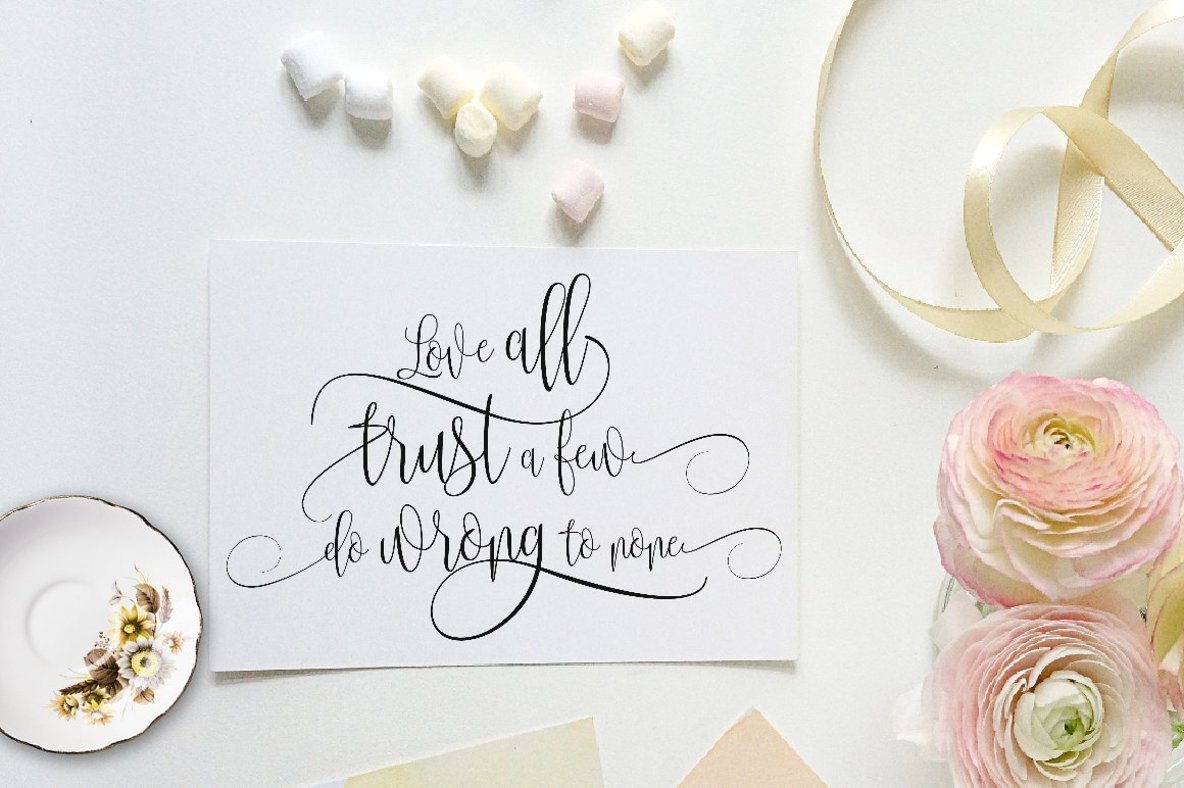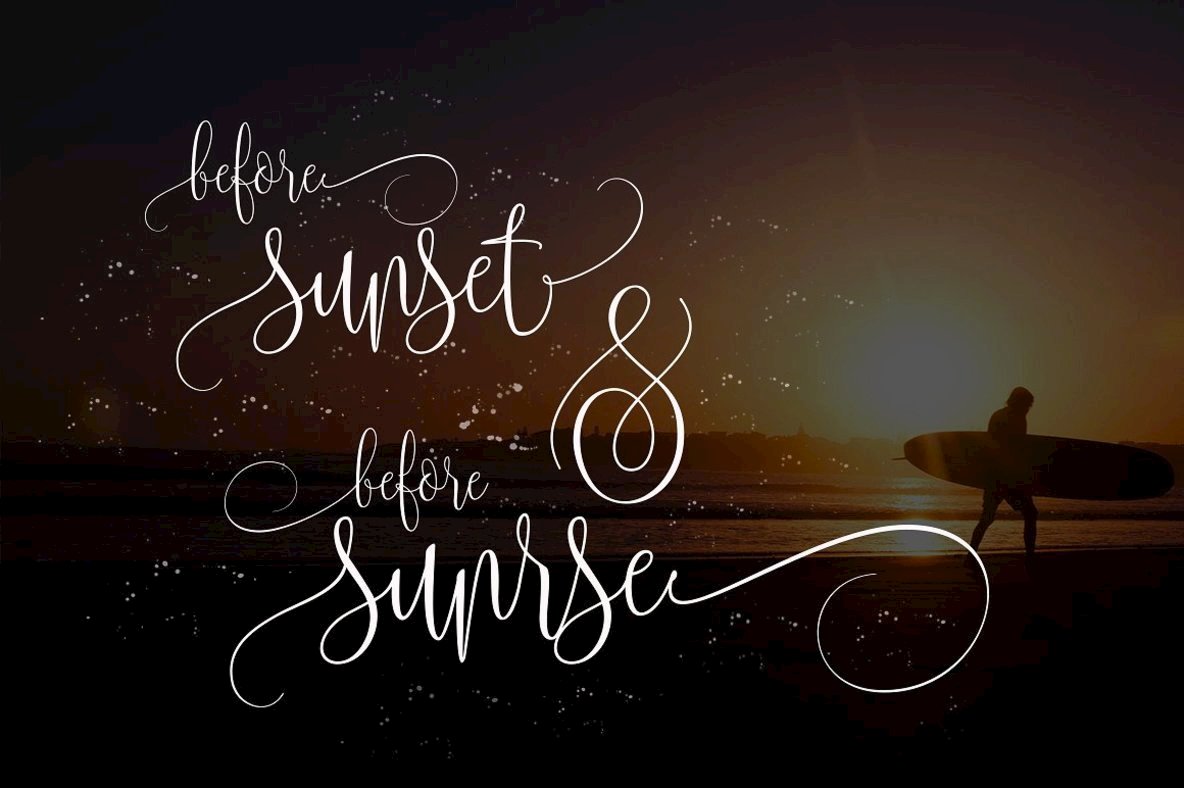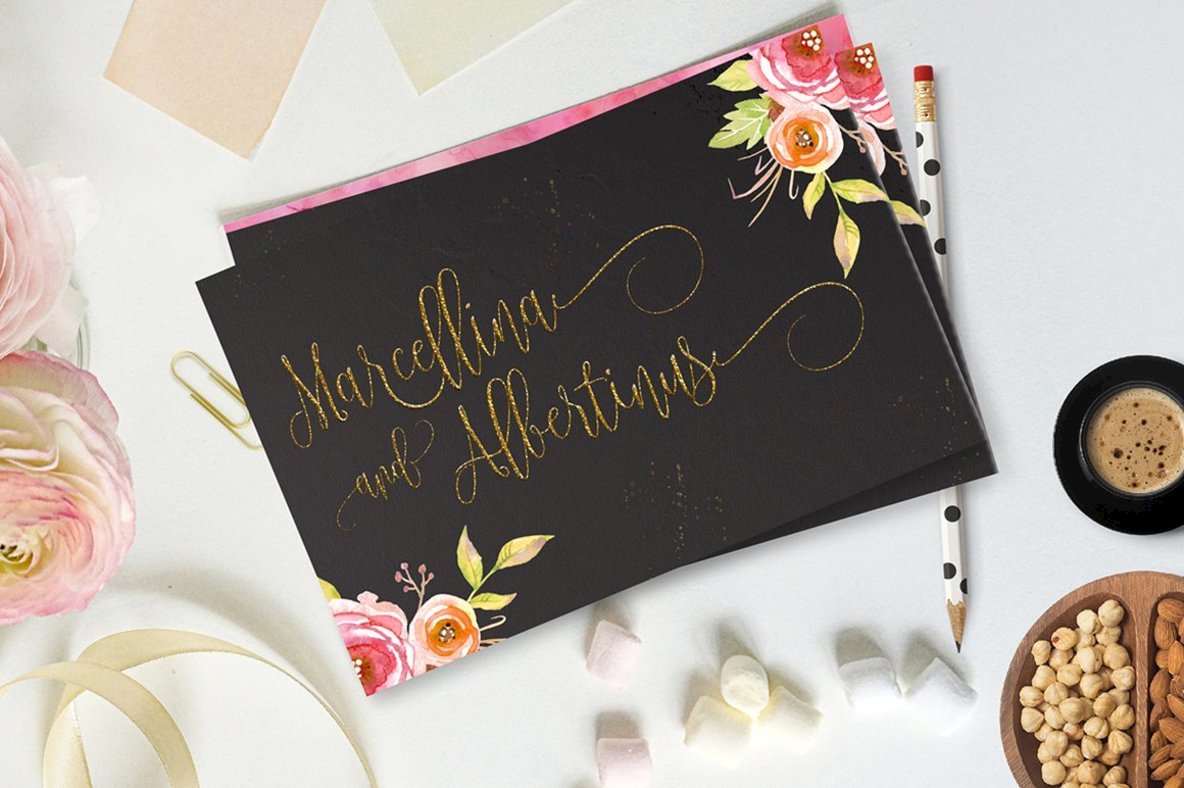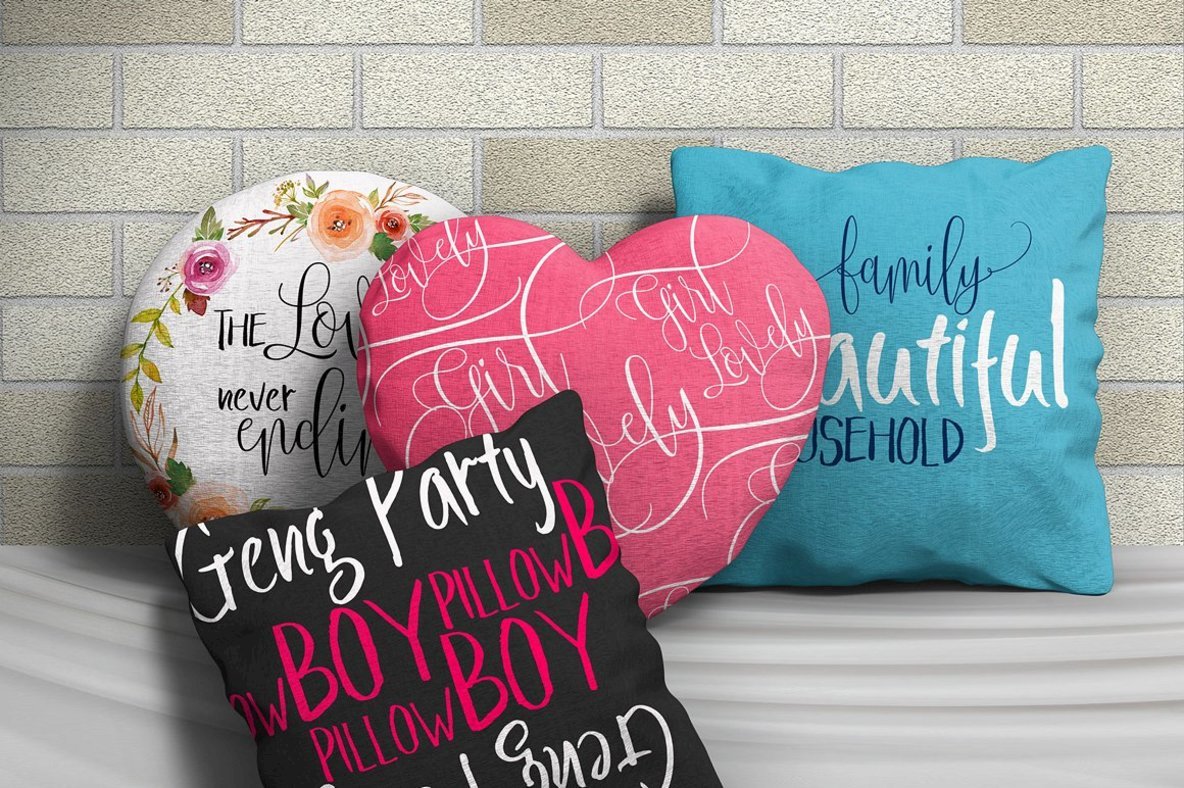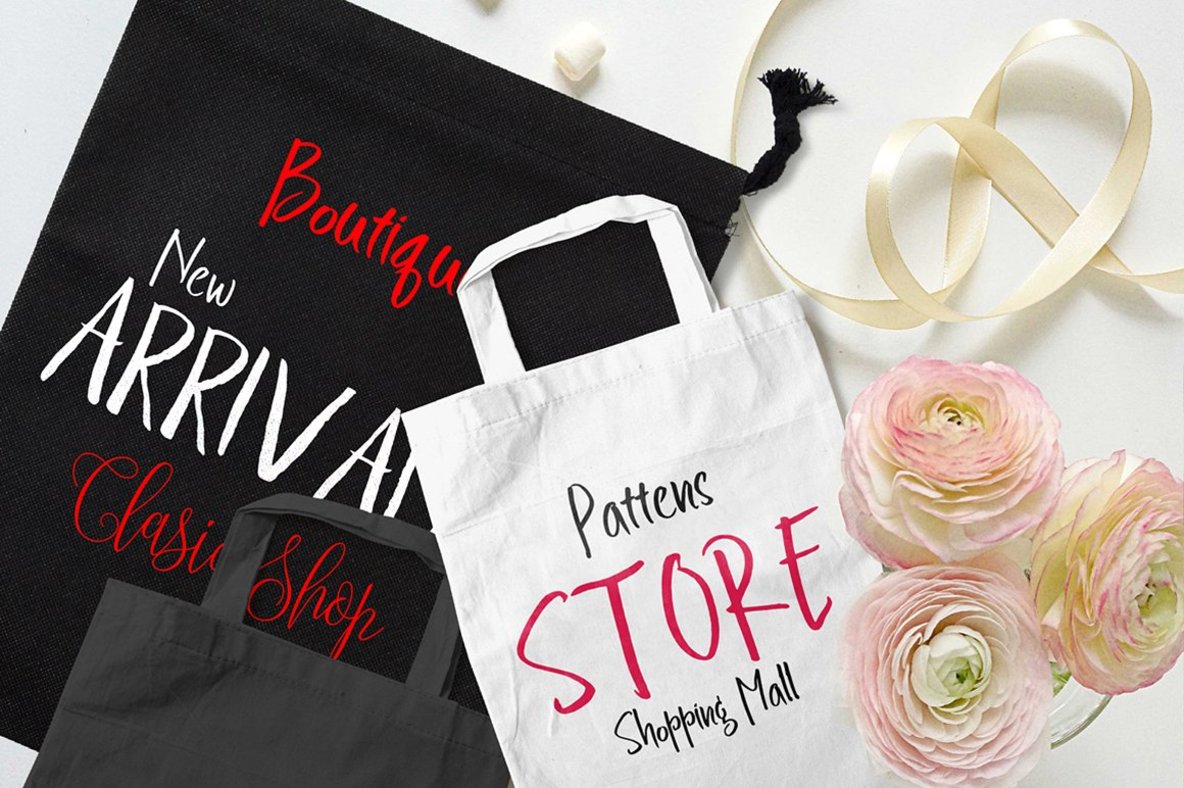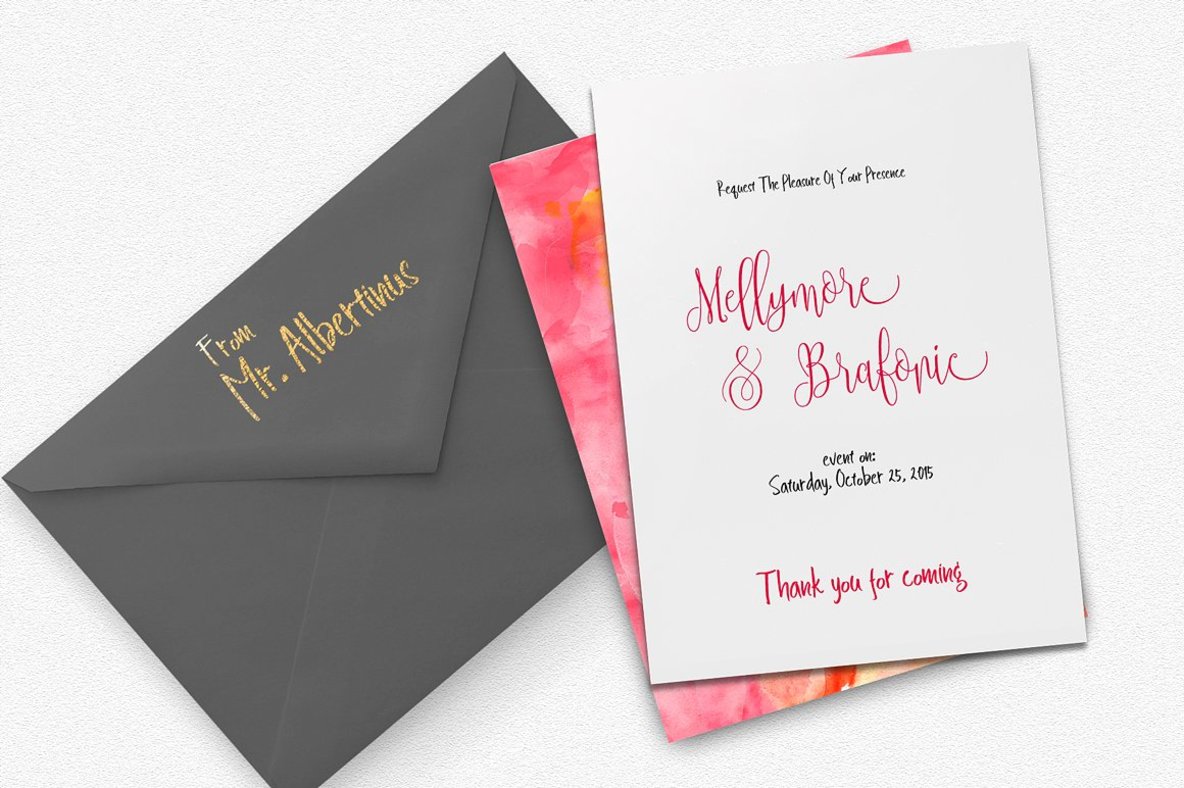
Braveheart Font
Embrace the art of handwriting with Braveheart, a modern calligraphy font that stands out for its unique forms and natural writing style. Designed to bring a touch of sophistication to any project, Braveheart beautifully balances elegance and personal expression. Bonus fonts, Bravelove and Braveblood, enhance your typographic toolkit. Braveheart also includes PUA Unicode to optimize creative potential. Compatibility: This font is expertly crafted to work seamlessly with Adobe Photoshop, Adobe Illustrator, Adobe InDesign, CorelDRAW, and Microsoft Office, enriching your design process across platforms. Language Support: Ample support includes all European languages based on the Latin alphabet, making Braveheart a versatile choice for diverse audiences. Applications: Whether for headings, logos, wedding invitations, T-shirts, letterheads, signage, labels, newsprint, posters, or badges, Braveheart adapts effortlessly. To access OpenType capabilities like stylistic alternates, ensure your software supports OpenType features such as those found in Adobe Illustrator CS, Adobe InDesign, and CorelDRAW X6-X7.Braveheart: Modern Calligraphy with Natural Flair